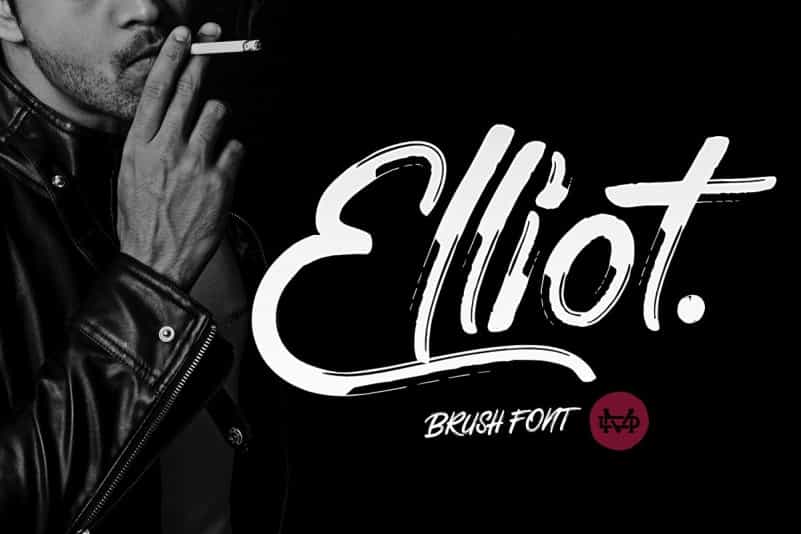
Elliot is a powerful handwritten brush script font with an outstanding and relaxed style. Elliot is accurately drawn to resemble a great flow and harmony with a natural look. Elliot Font is perfect for branding projects, clothing companies, advertising, product packaging and a lot of your creative works. This font is the best for poster design, book covers, merchandise designing , fashion campaigns and so on.